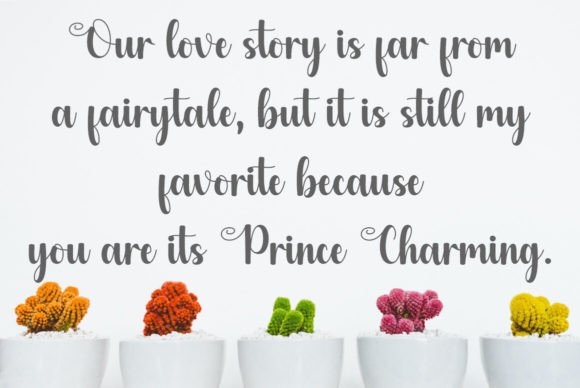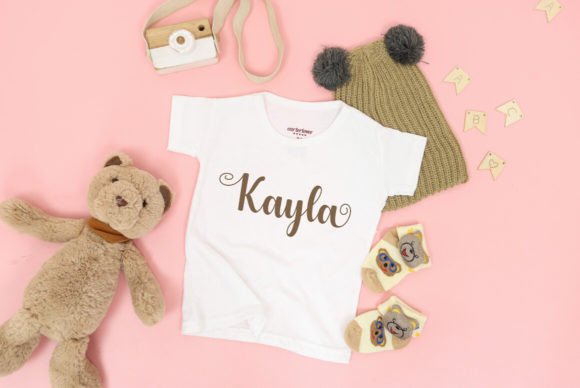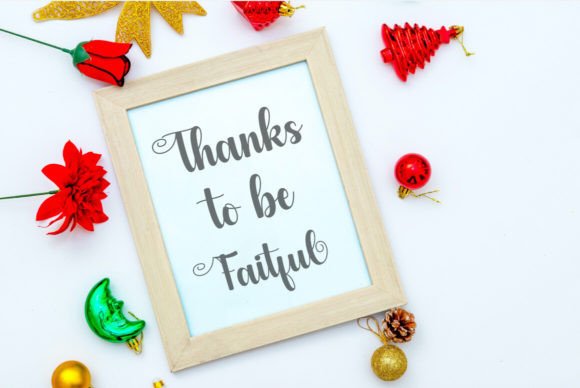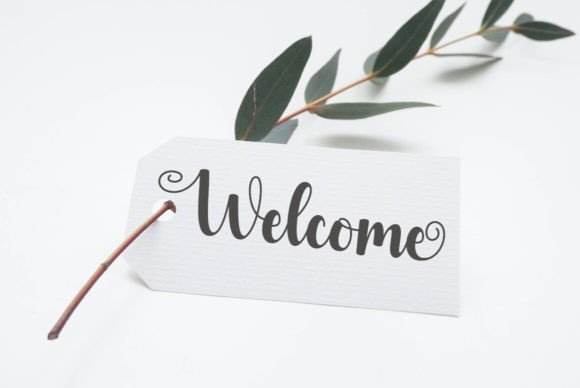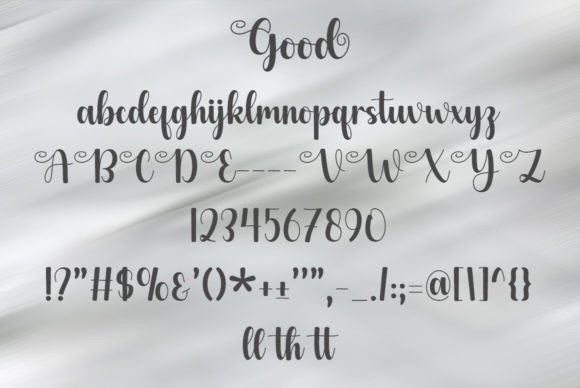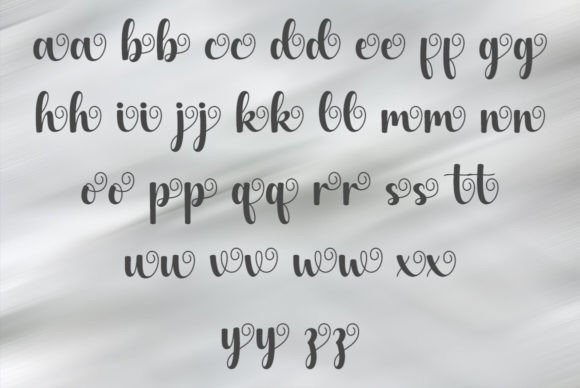
The Beauty of Good Font: Elevate Your Designs with a Timeless Classic
In the world of typography, a good font can make all the difference in elevating your designs from ordinary to extraordinary. For designers and crafters, finding the perfect font that combines style, elegance, and versatility can be a daunting task. However, if you’re looking for a font that embodies a contemporary atmosphere with a touch of classic sophistication, look no further than Good Font.
Inspired by Timeless Classic Calligraphy
Good Font is a stylish handwritten font that draws inspiration from timeless classic calligraphy. With its impeccable form and balanced design, this font is perfect for adding a touch of elegance to any project. Whether you’re working on a logo, branding materials, or digital content, Good Font is designed to enhance the beauty of your creations.
A Contemporary Twist on Classic Elegance
What sets Good Font apart is its unique blend of classic and contemporary elements. The font’s design is rooted in traditional calligraphy, yet it boasts a modern and fresh feel that’s perfect for today’s design landscape. This fusion of old and new makes Good Font an excellent choice for designers looking to create unique and eye-catching designs.
Good Font is PUA (Private Use Area) encoded, which means that you can access all of its amazing glyphs and ligatures with ease. This feature makes it easy to incorporate the font’s beautiful swashes, flourishes, and other decorative elements into your designs. With PUA encoding, you can unlock the full potential of Good Font and take your designs to the next level.
Balanced and Varied for Endless Possibilities
One of the standout features of Good Font is its balanced and varied design. The font comes with a range of glyphs, ligatures, and swashes, giving you endless possibilities for creative expression. Whether you’re looking to create a bold statement or a subtle design, Good Font provides the flexibility to achieve your vision.
Good Font is an excellent choice for designers and crafters working on a variety of projects, including:
- Digital content, such as e-books and blogs
- Print materials, like brochures and posters
- Craft projects, such as handmade cards and invitations
Why Choose Good Font?
So, why choose Good Font for your design projects? Here are just a few reasons:
- Unique and eye-catching design: Good Font’s blend of classic and contemporary elements makes it a standout choice for designers looking to create unique designs.
- Ease of use: With PUA encoding, accessing the font’s glyphs and ligatures is easy, making it simple to incorporate into your designs.
- Versatility: Good Font is suitable for a wide range of projects, from digital content to print materials and craft projects.
- Elegant and sophisticated: Good Font’s classic inspiration and impeccable form make it perfect for adding a touch of elegance to your designs.
In conclusion, Good Font is an exceptional choice for designers and crafters looking to elevate their designs with a stylish and elegant font. With its timeless classic inspiration, contemporary atmosphere, and impeccable form, Good Font is perfect for adding a touch of sophistication to any project. Whether you’re working on a logo, digital content, or craft project, Good Font is sure to impress.